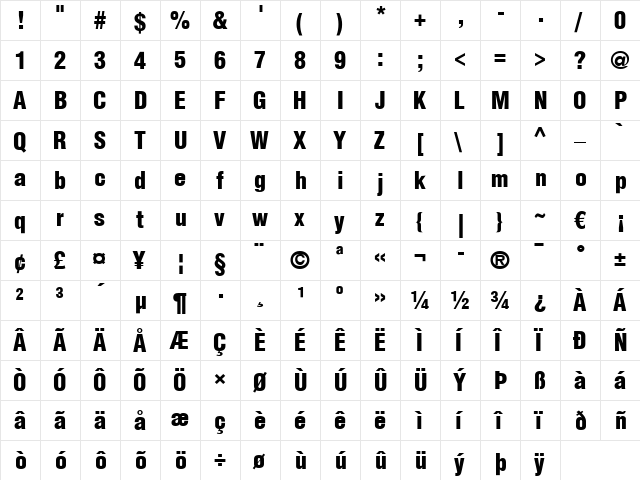
Helvetica LT CondensedBlack Regular
Design Context for Helvetica LT CondensedBlack Typeface
Helvetica LT CondensedBlack is a composed and adaptable typeface that performs quietly and consistently across a wide range of design contexts. Its slender proportions lend an understated elegance to any composition. The condensed width makes it efficient for tight spaces without sacrificing legibility.
Pro Tip: Pair Helvetica LT CondensedBlack with a font of contrasting weight or personality to build a more expressive typographic hierarchy.